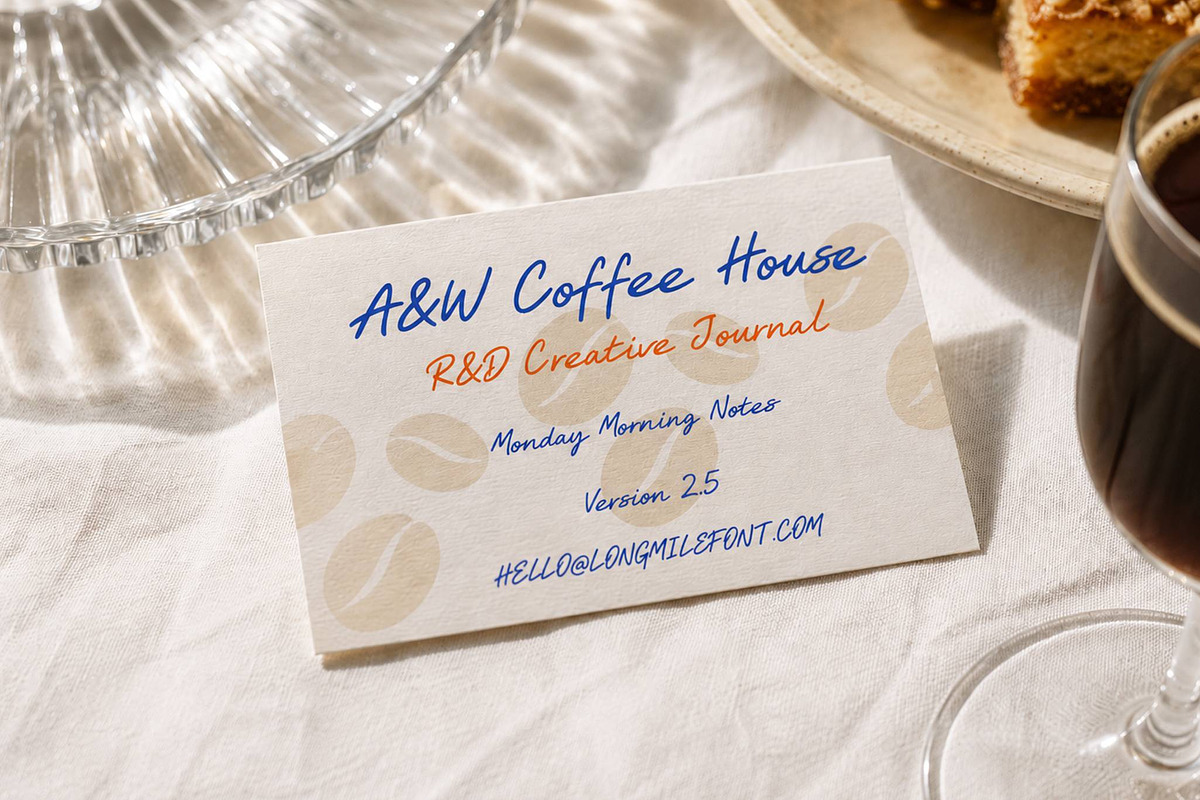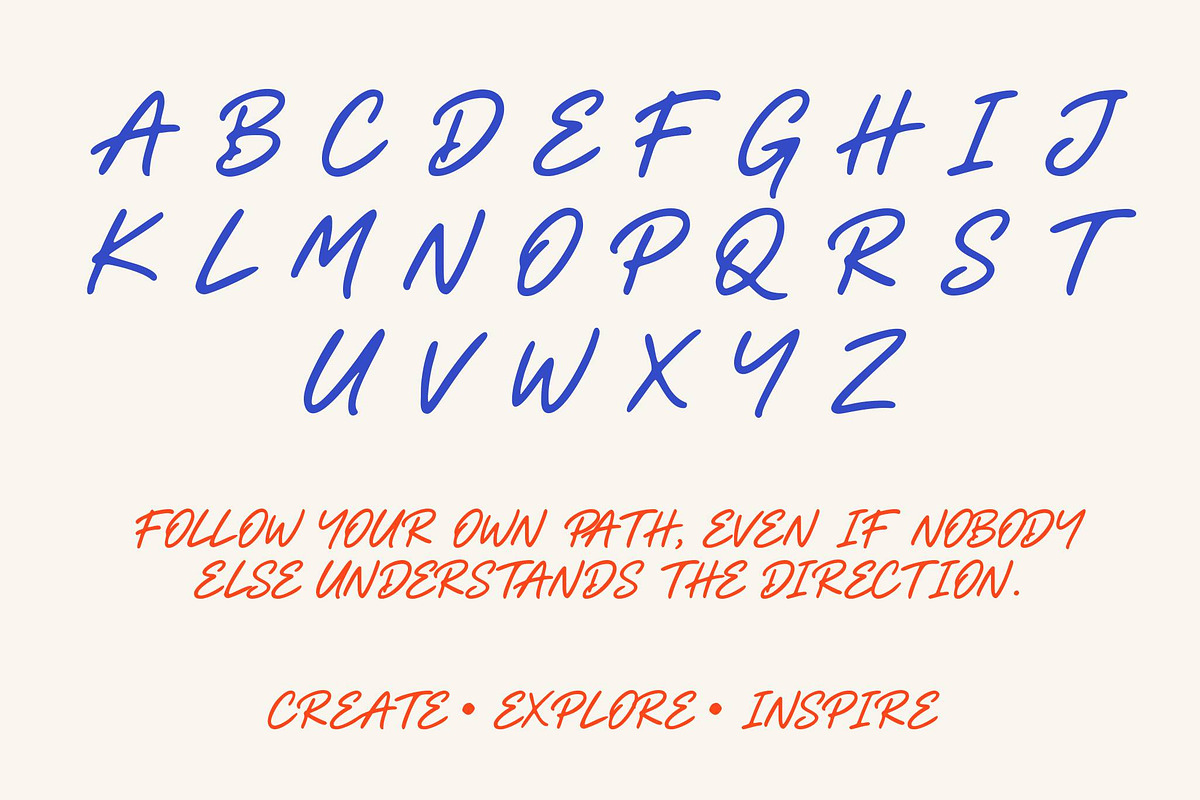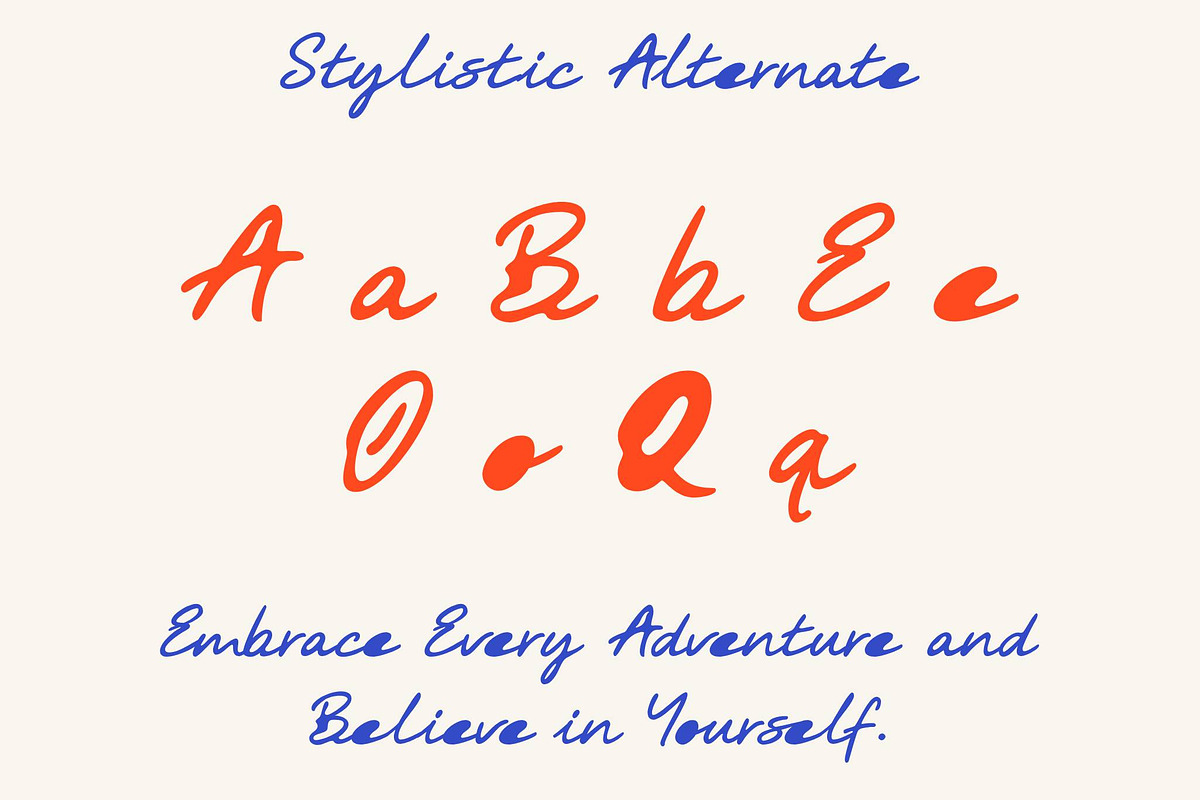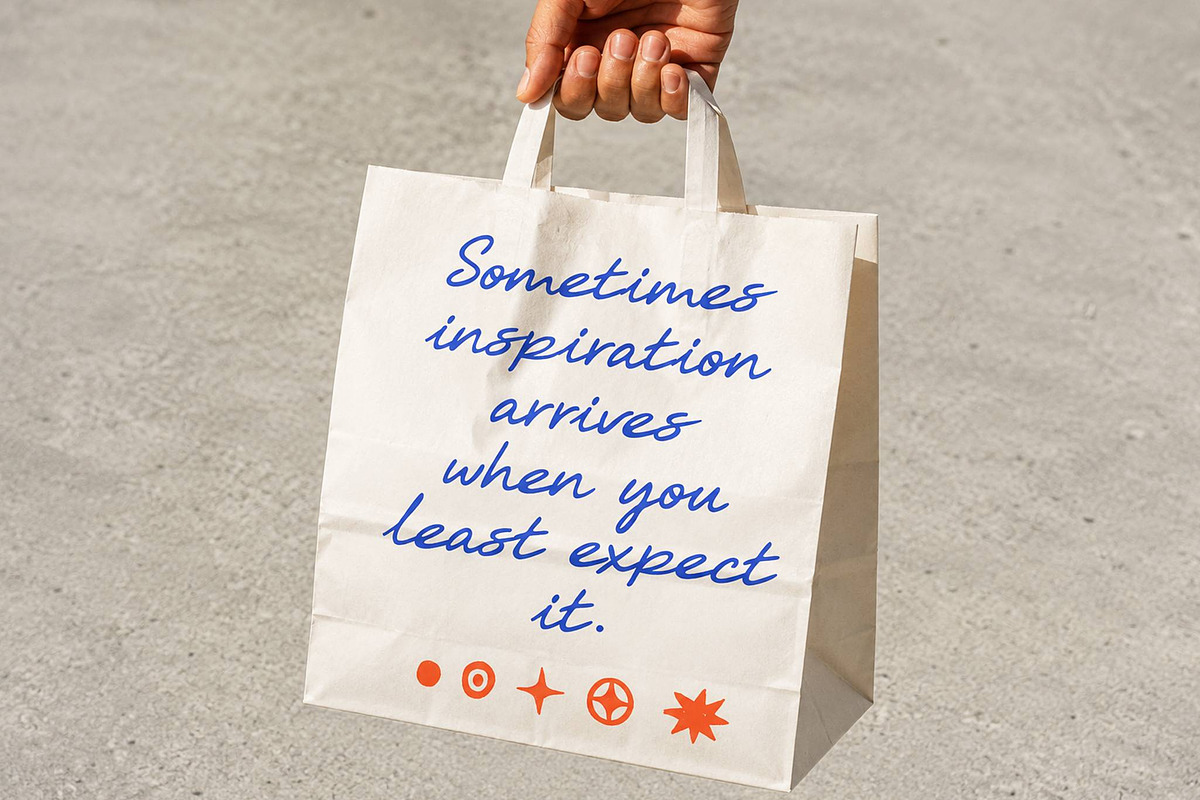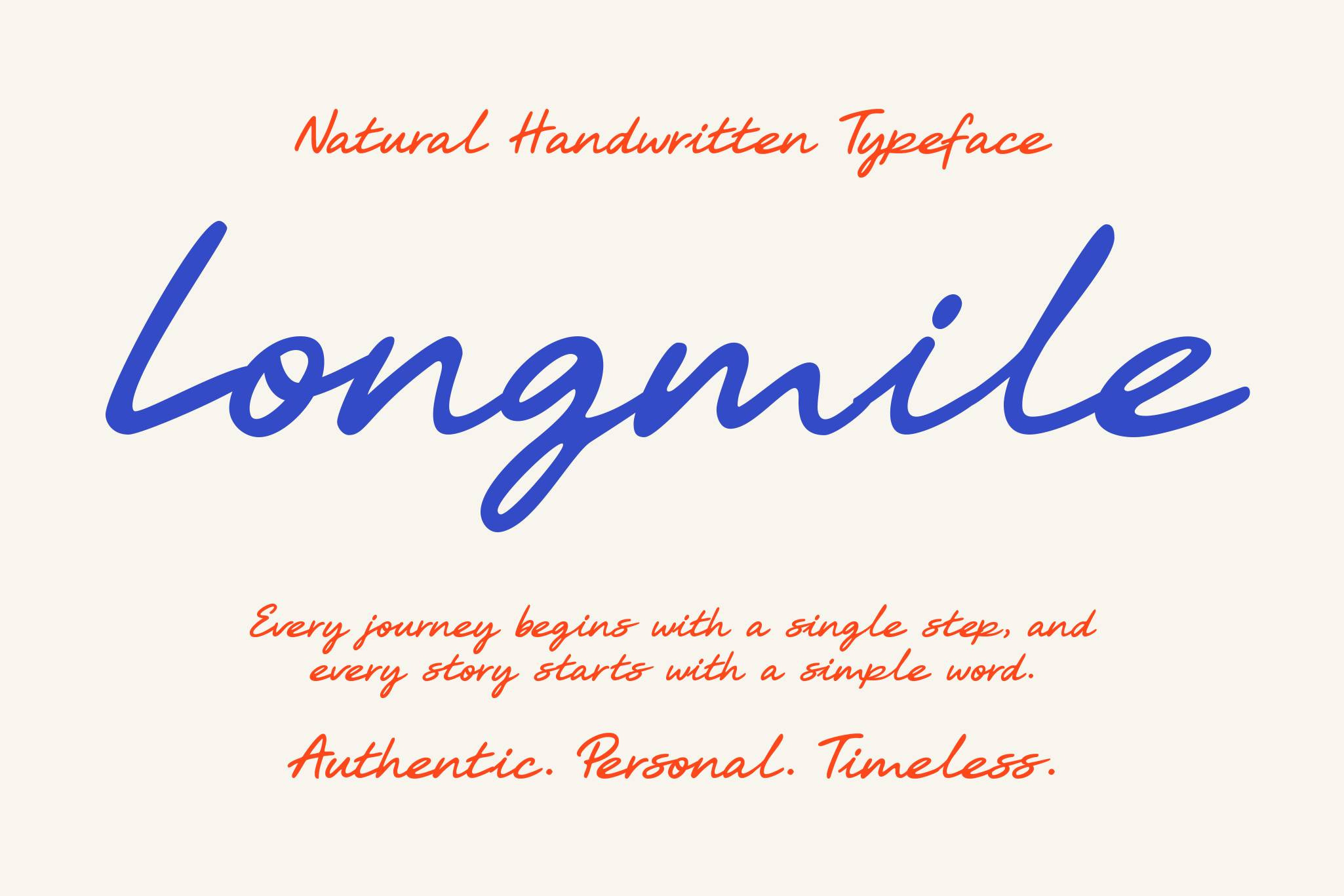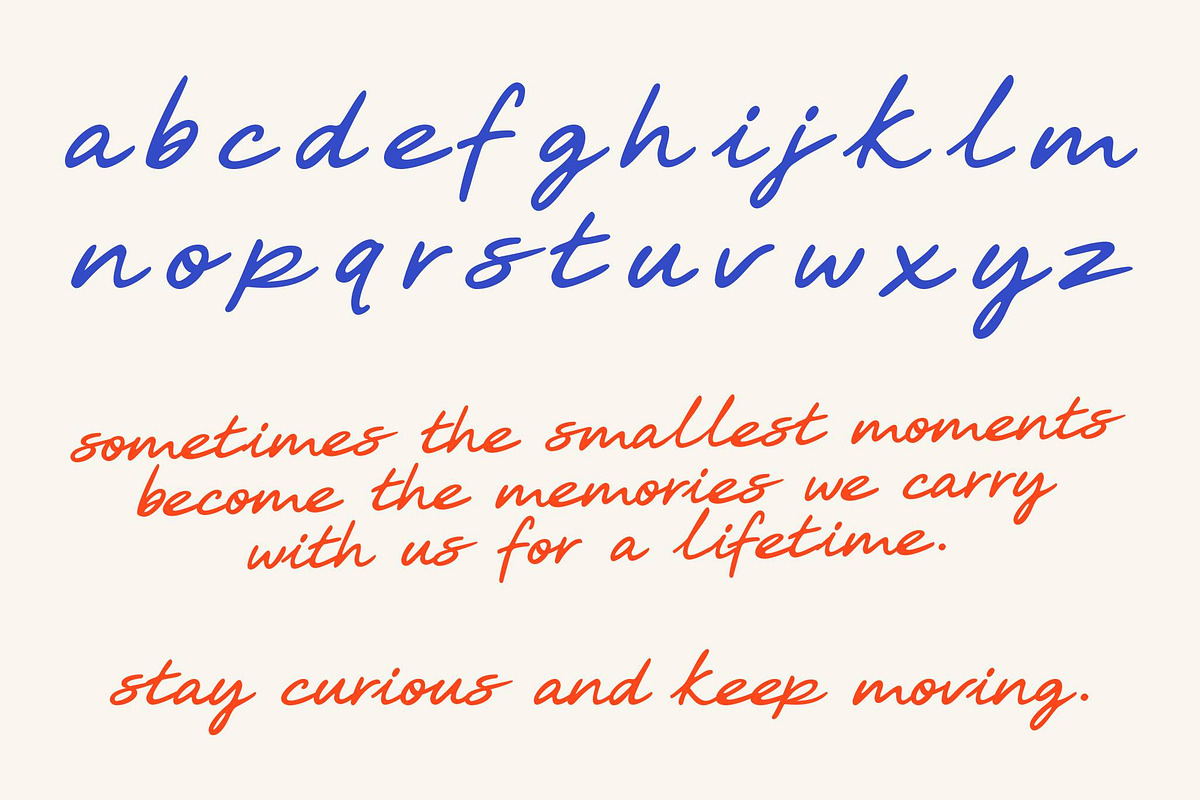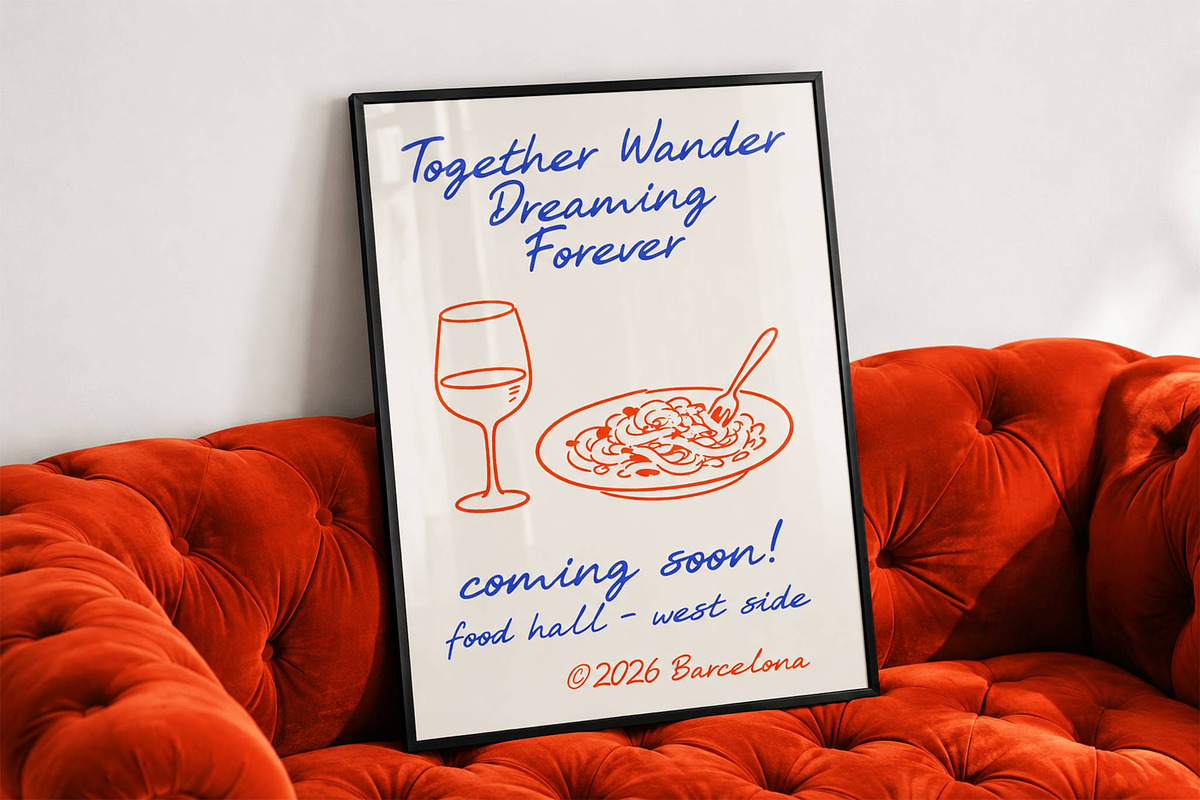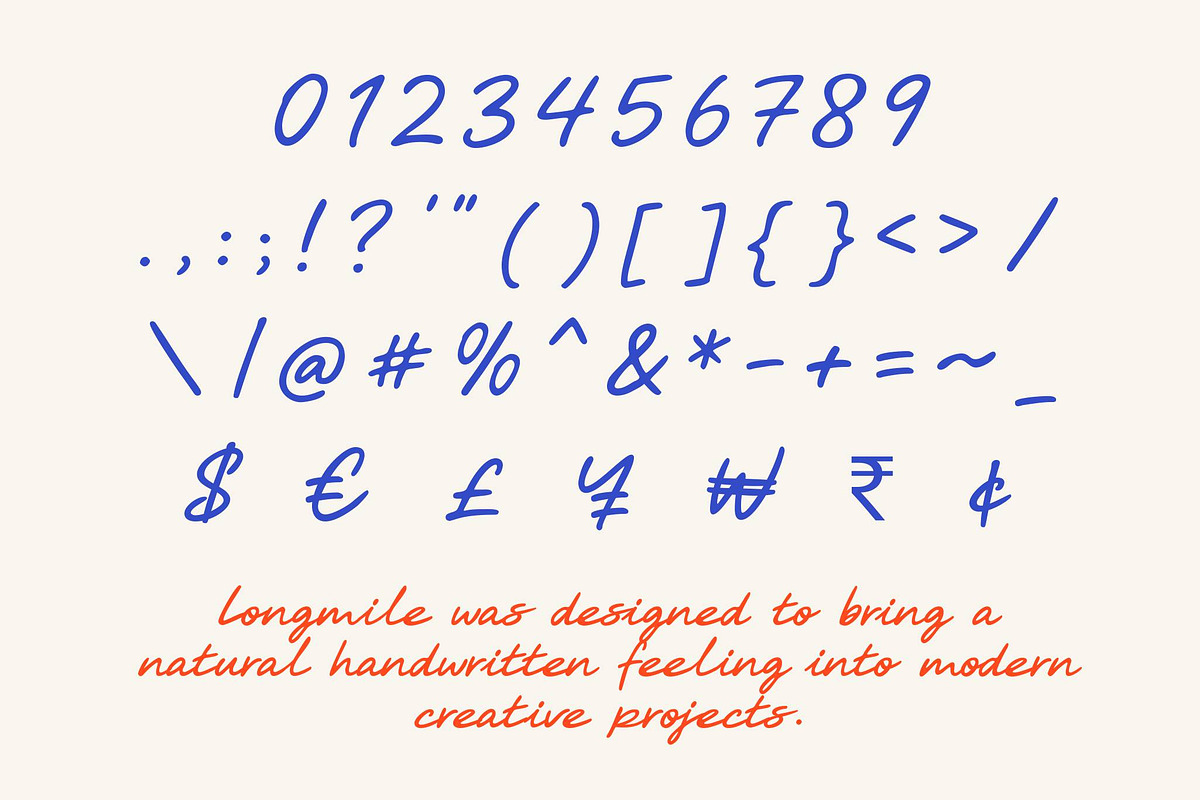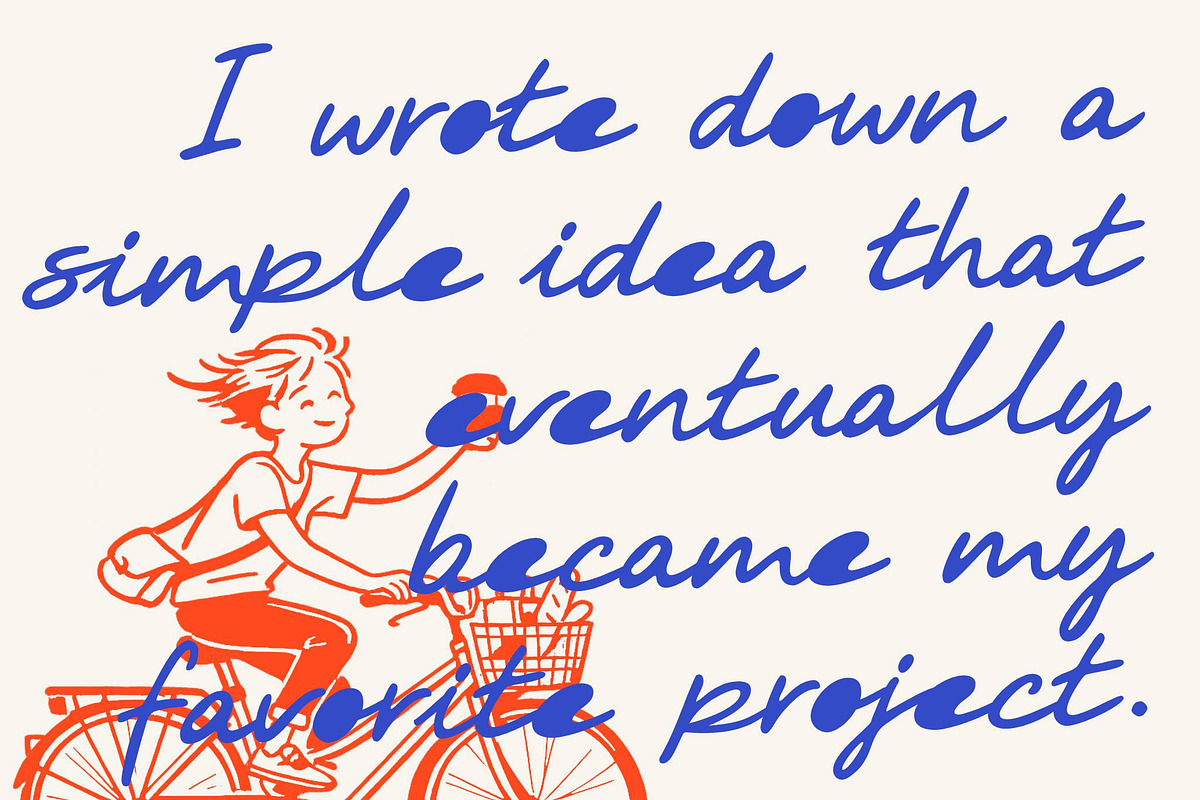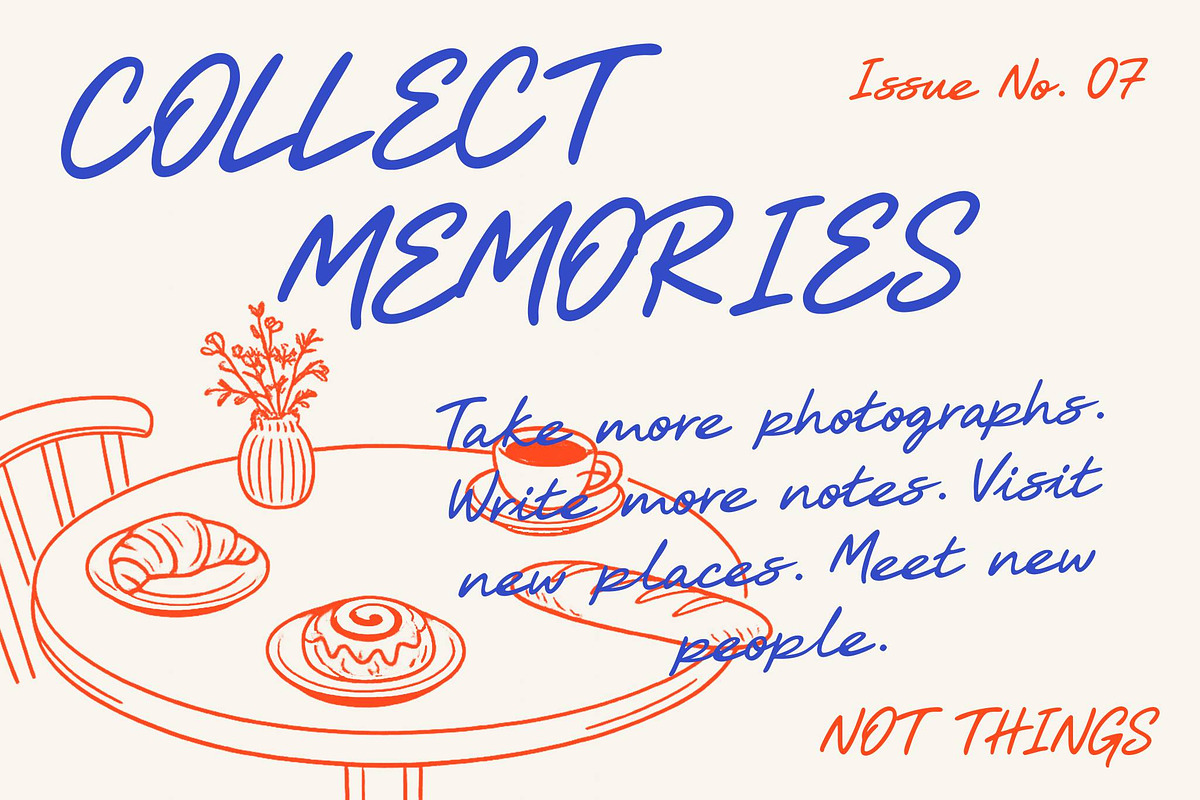
Longmile Font
Longmile is a natural handwritten typeface inspired by authentic handwriting and personal signatures. Featuring smooth, flowing strokes, elegant curves, and a relaxed handwriting style, this font conveys a warm, friendly, and timeless character. Perfect for branding, logos, packaging, invitations, social media posts, quotes, and creative projects, Longmile adds an authentic, human touch while maintaining a clean and sophisticated look. Its natural charm makes every design feel personal, expressive, and memorable.